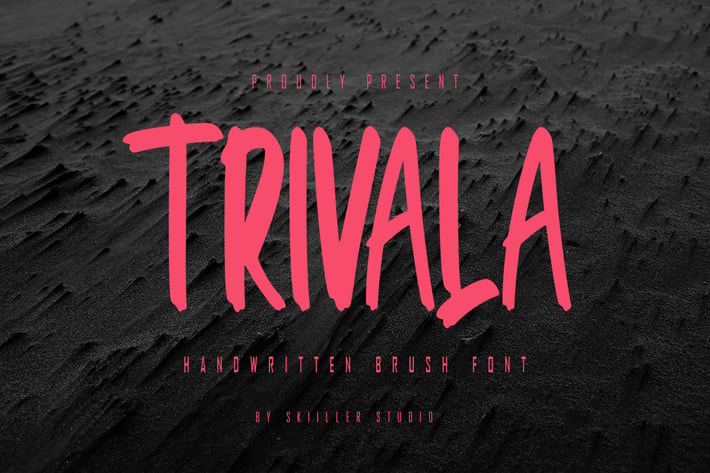
Trivala - Handwritten Brush Font
Trivala is a type of textured brush or paint scratches or original brush, there are textures like the original stroke of this font suitable for other film or commercial needs that can support your business or company. thank you